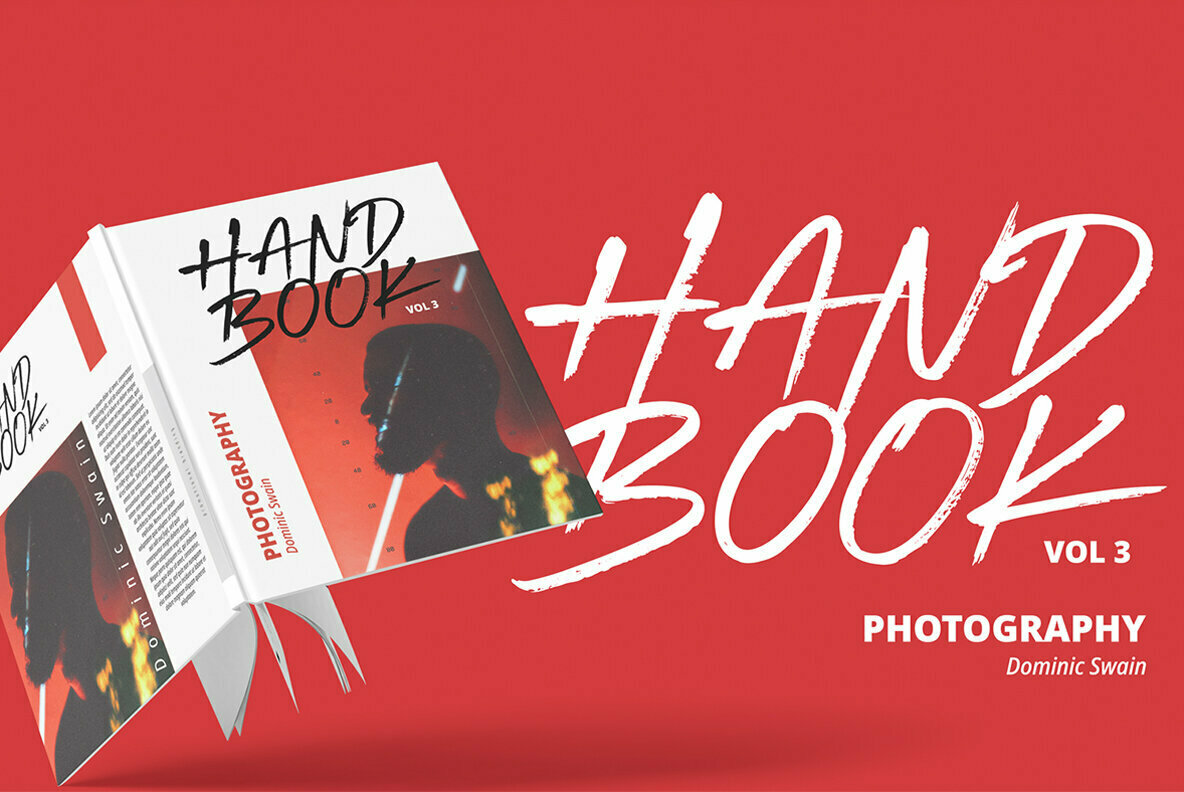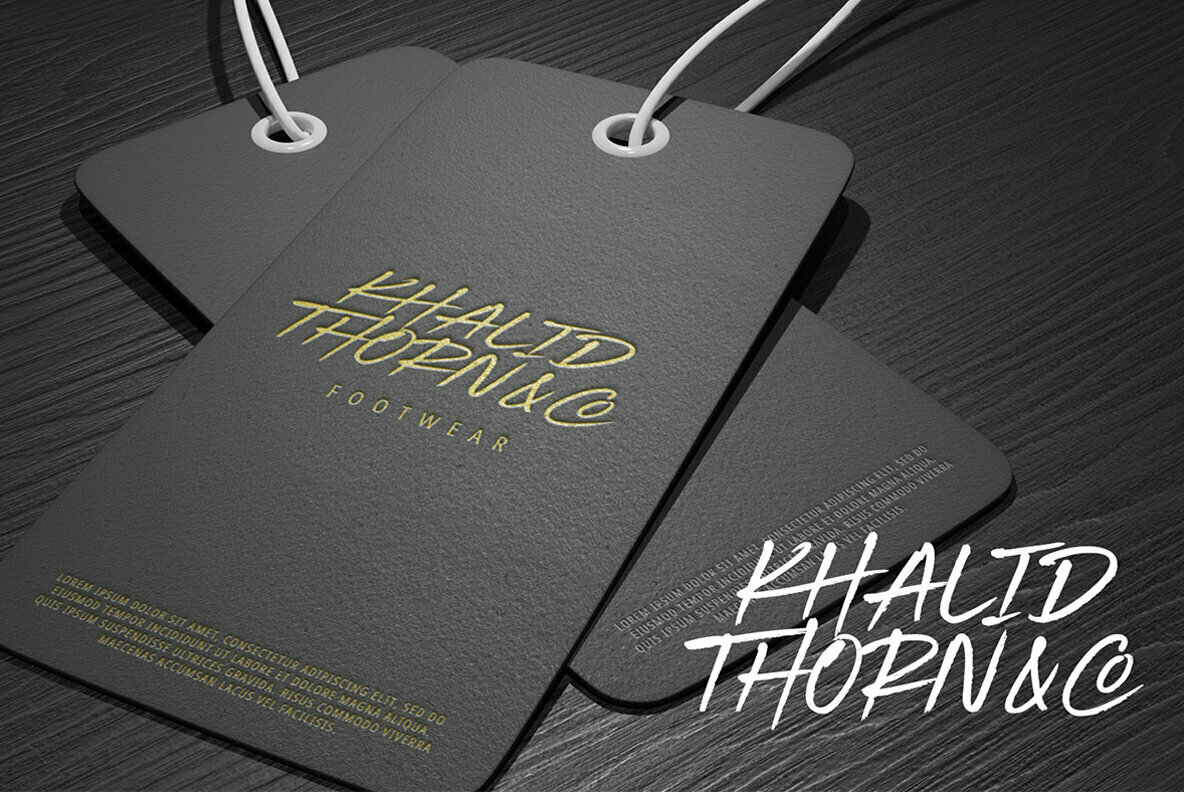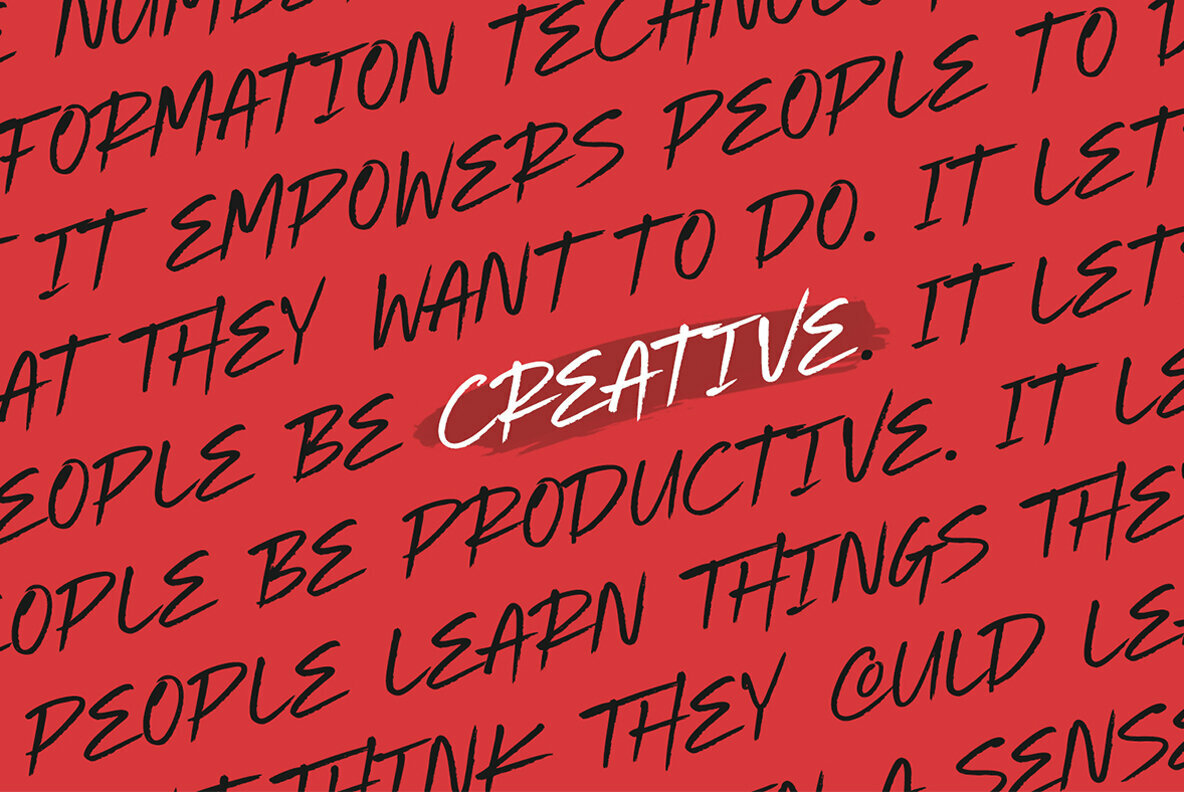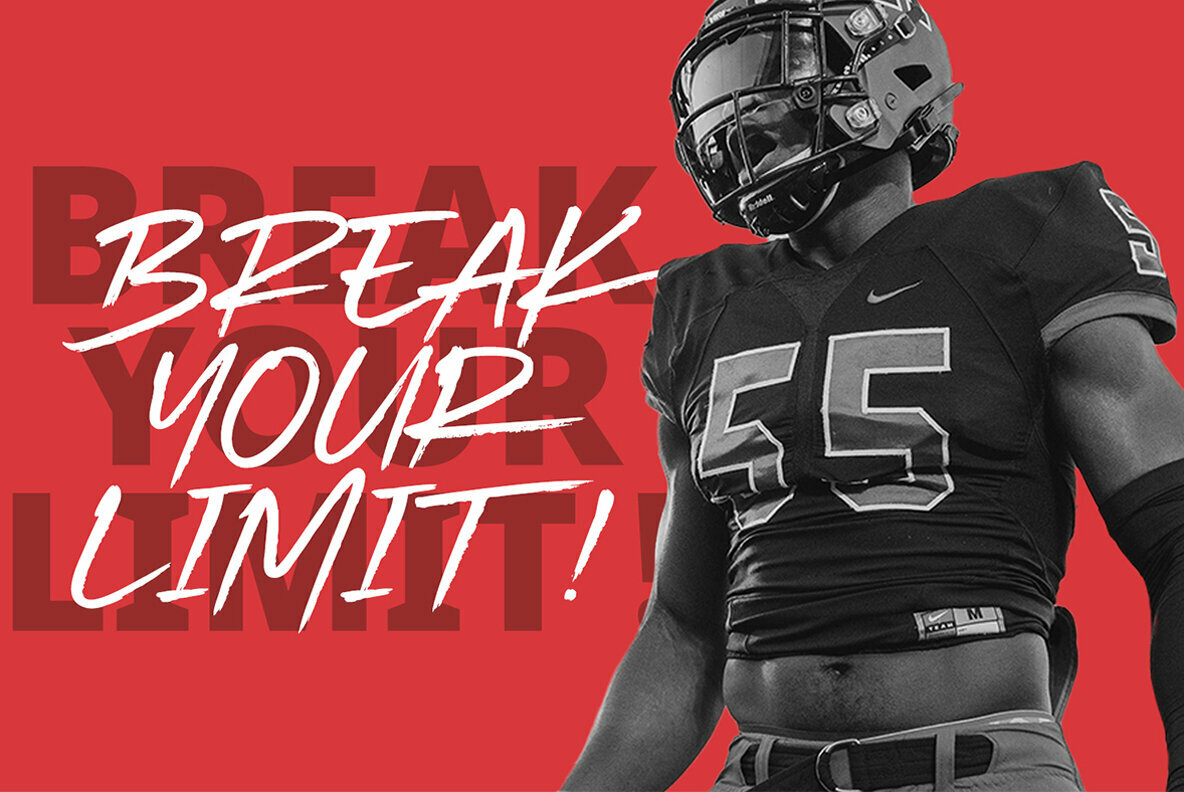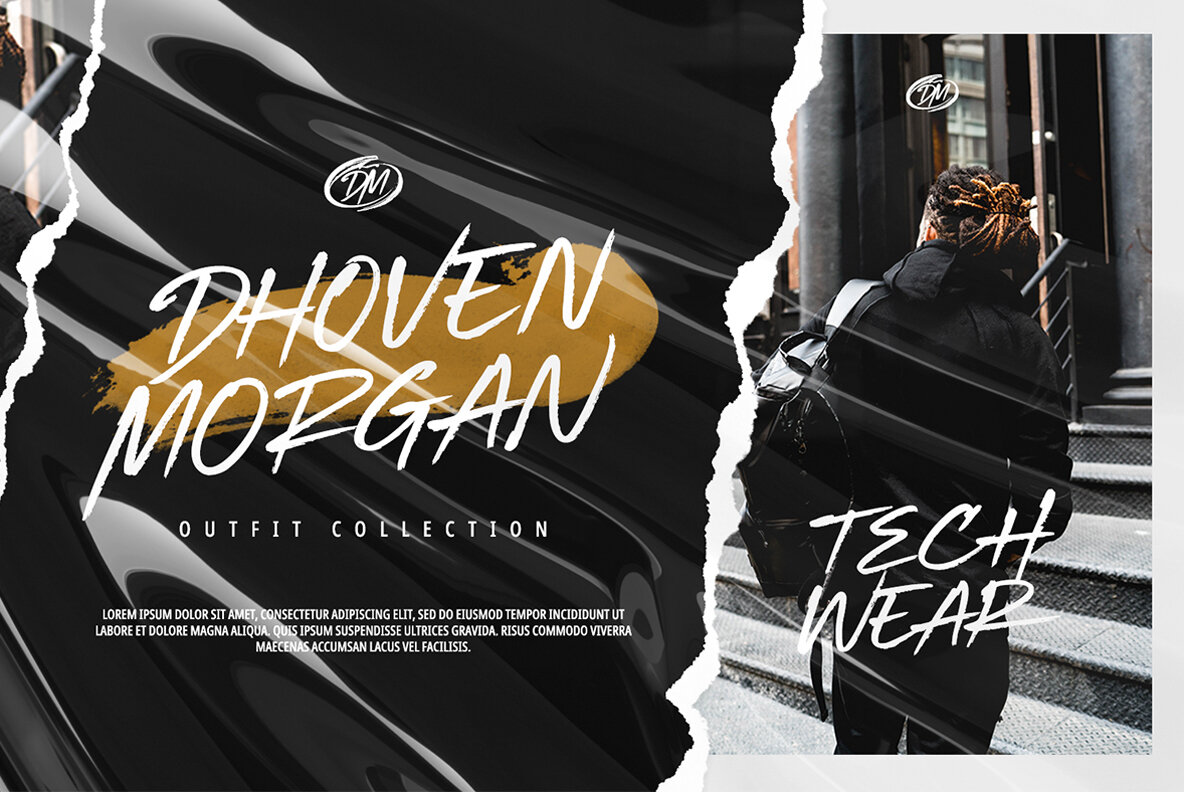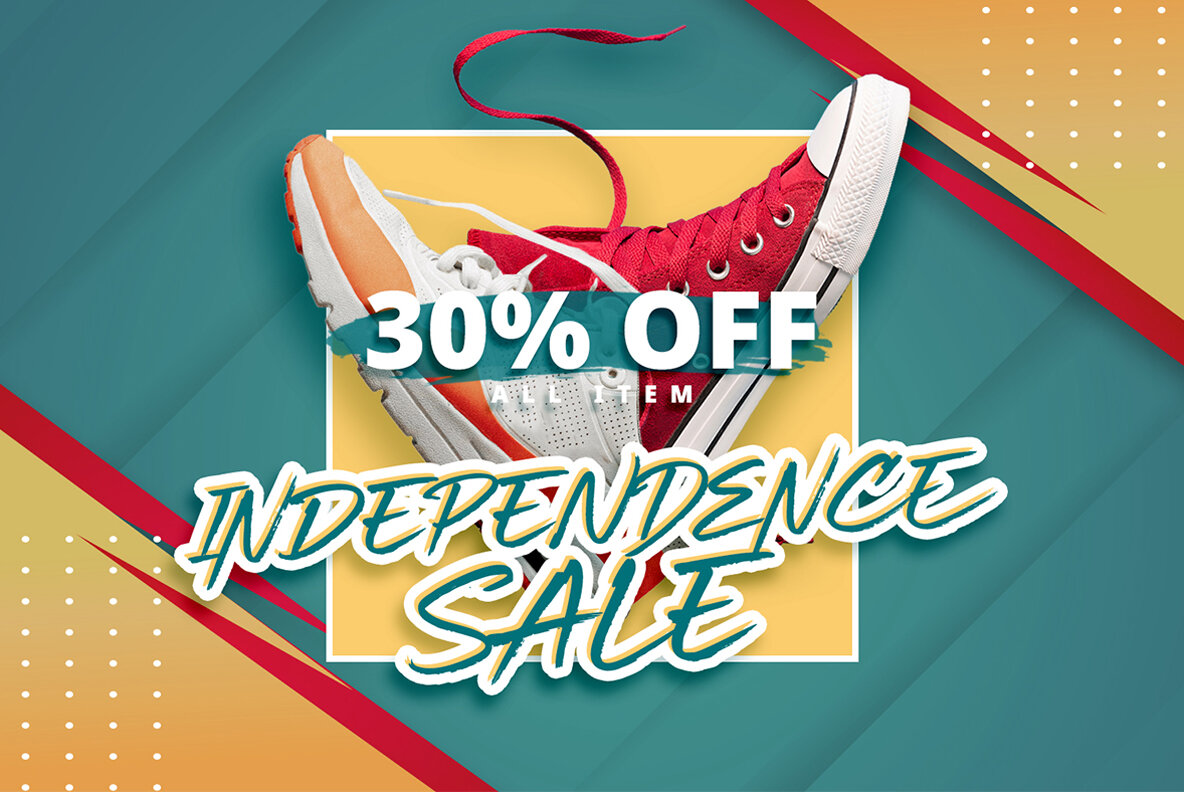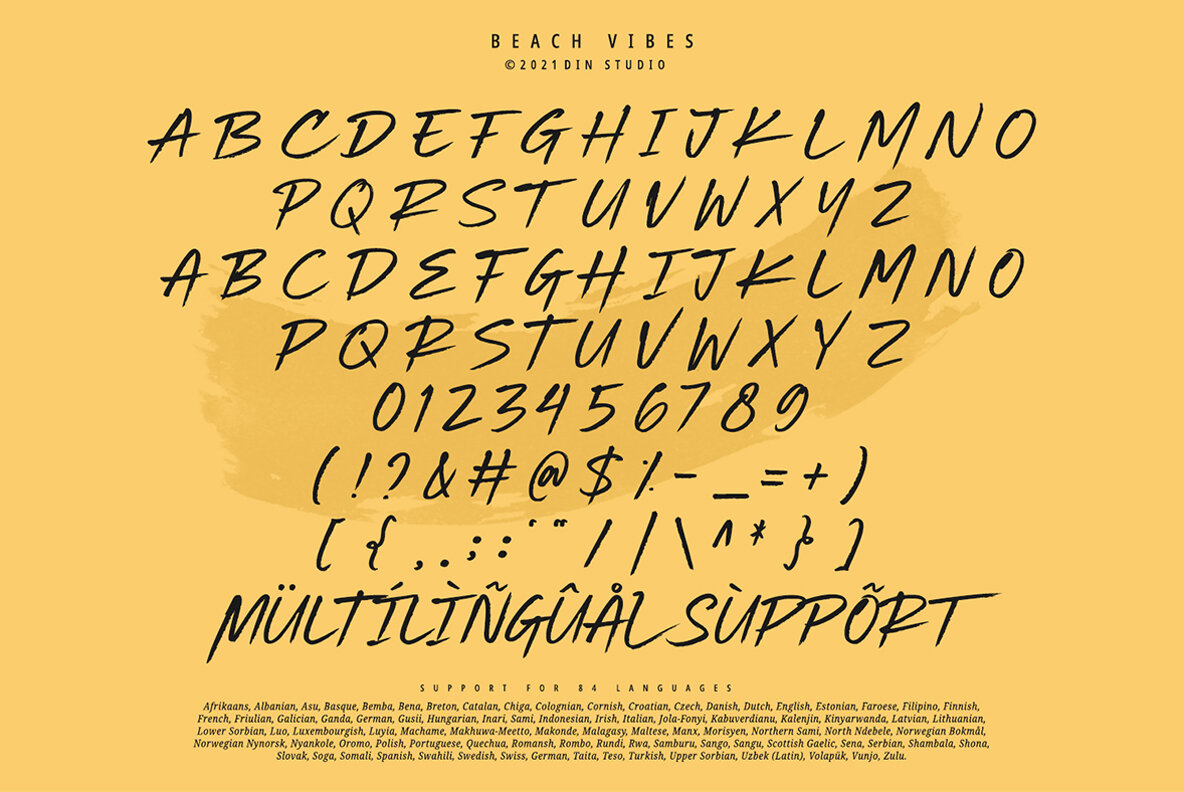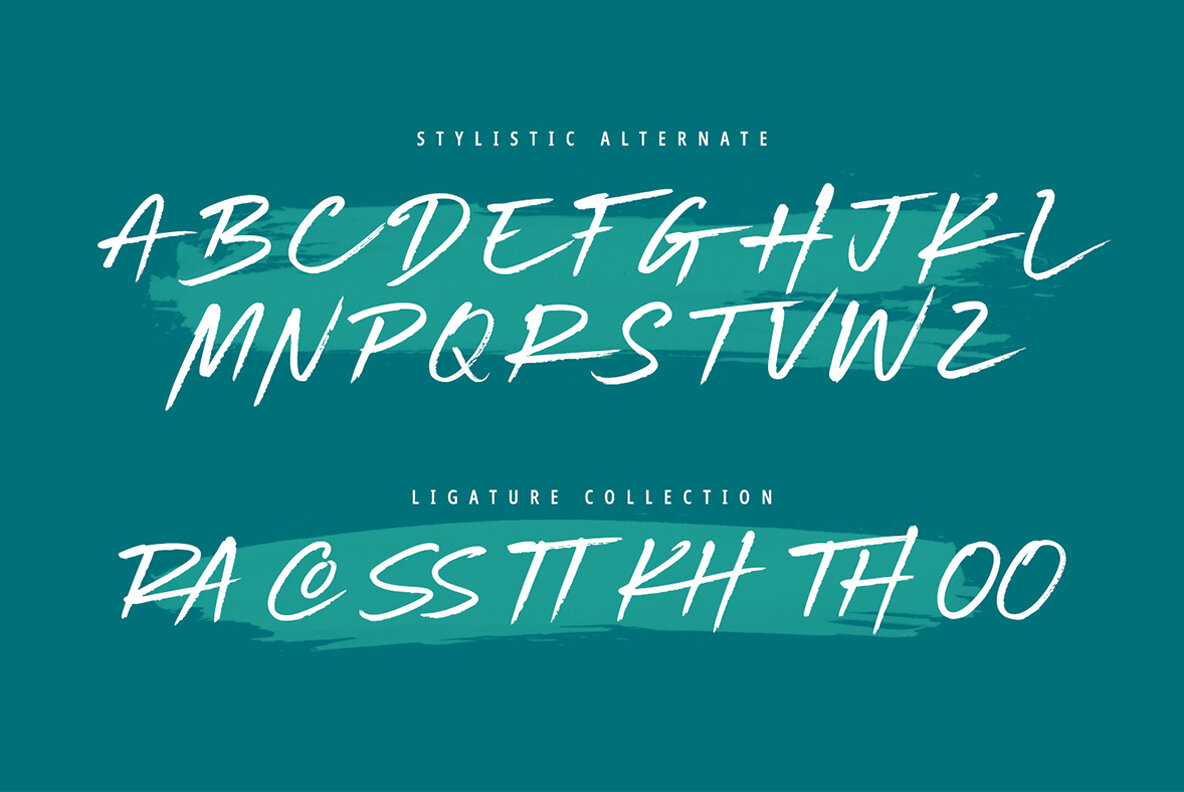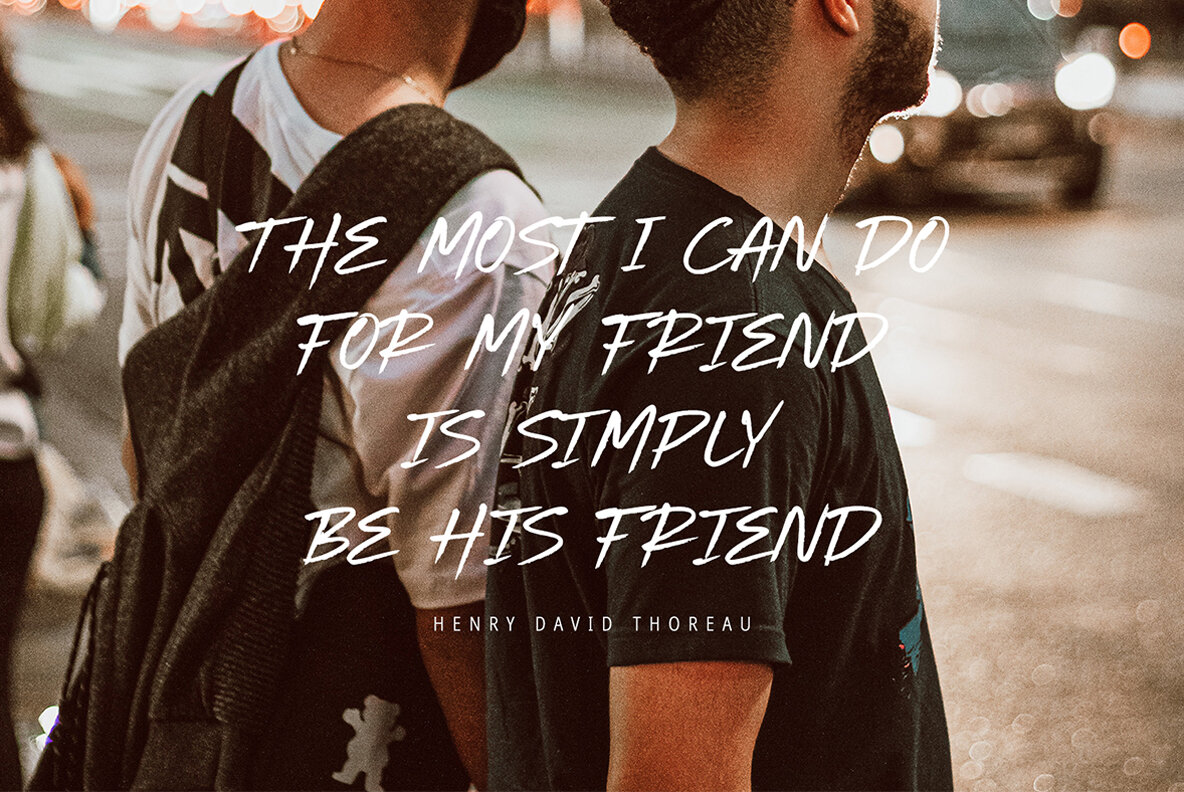
Beach Vibes
Wanna make your branding spark? Do you sometimes have an appetite for a bit more wholesome typography? Looking for a gorgeous and stylish font? If you need to create a big, bold logo for your business, work on a poster for an event, or whatever your project may be-then we've got what you want.
Beach Vibes - A Display Brush Font
Beach Vibes is an awesome font. A display font that is accompanied by a fabulous handcrafted script brush font that works together in perfect harmony. This font made all in uppercase that easy on the eyes and nice to look while it’s also easy to read Designed primarily as a captivating font to add the right amount of modernity and style, Great choice for your logo, book cover, poster, t-shirt, branding, and advertisement needs.
Our font always includes Multilingual Support to make your branding reach a global audience.
- Numerals and Punctuation